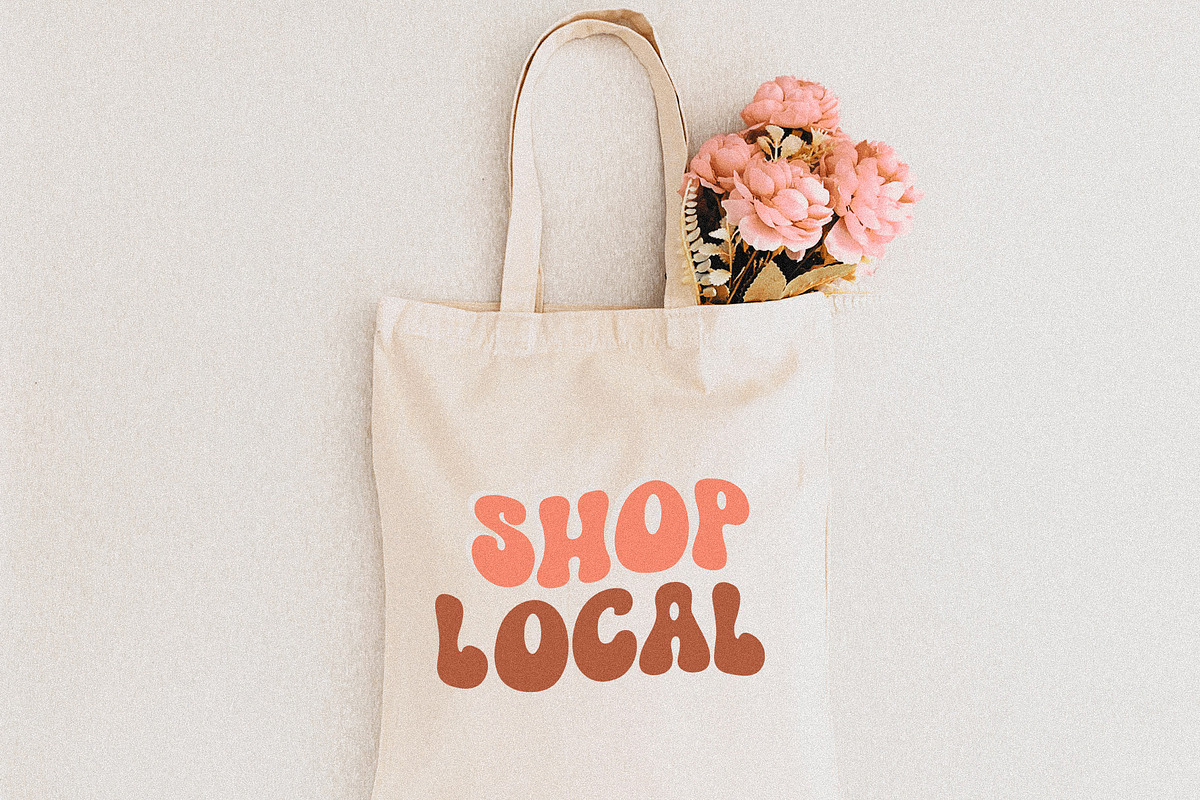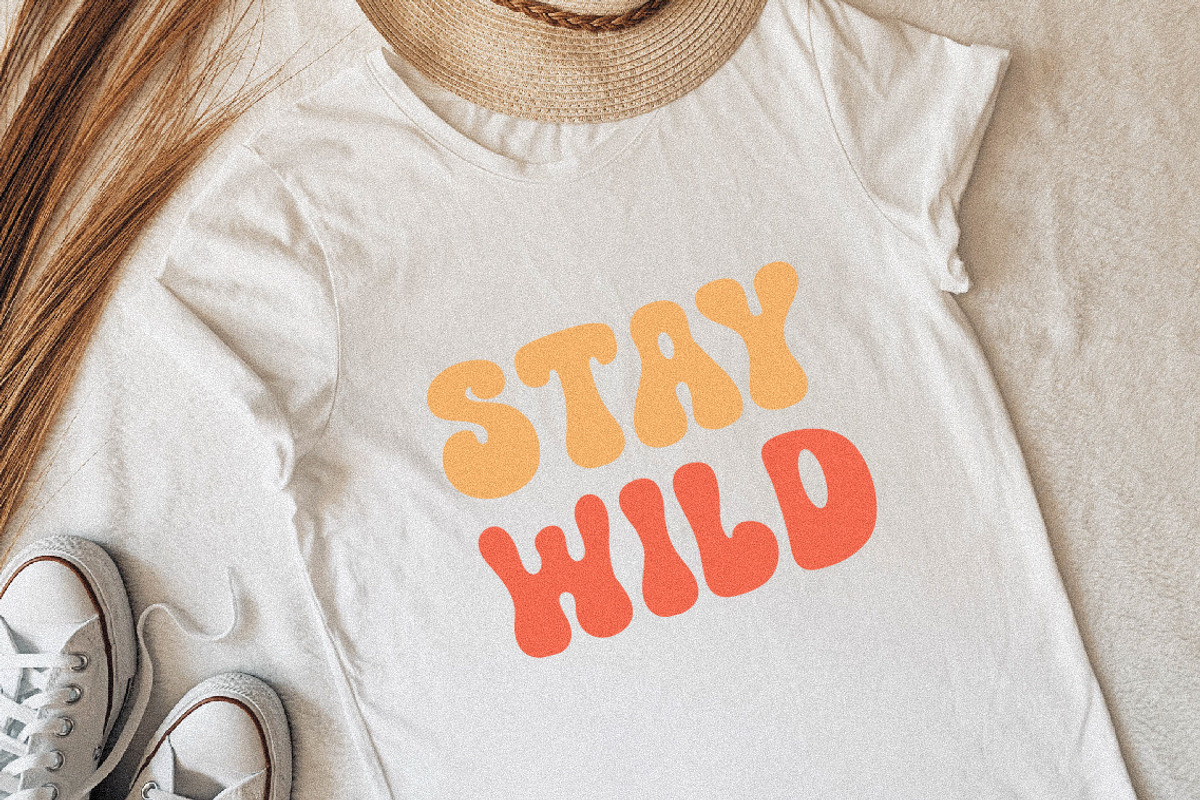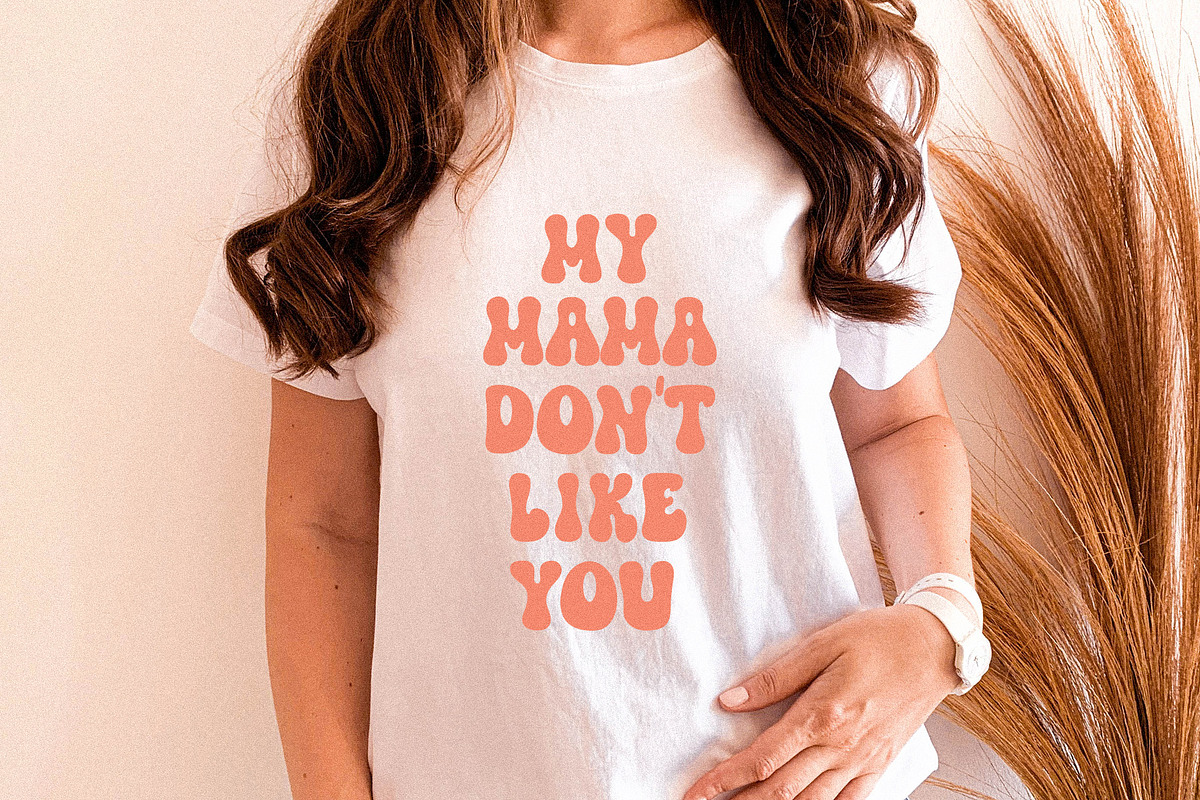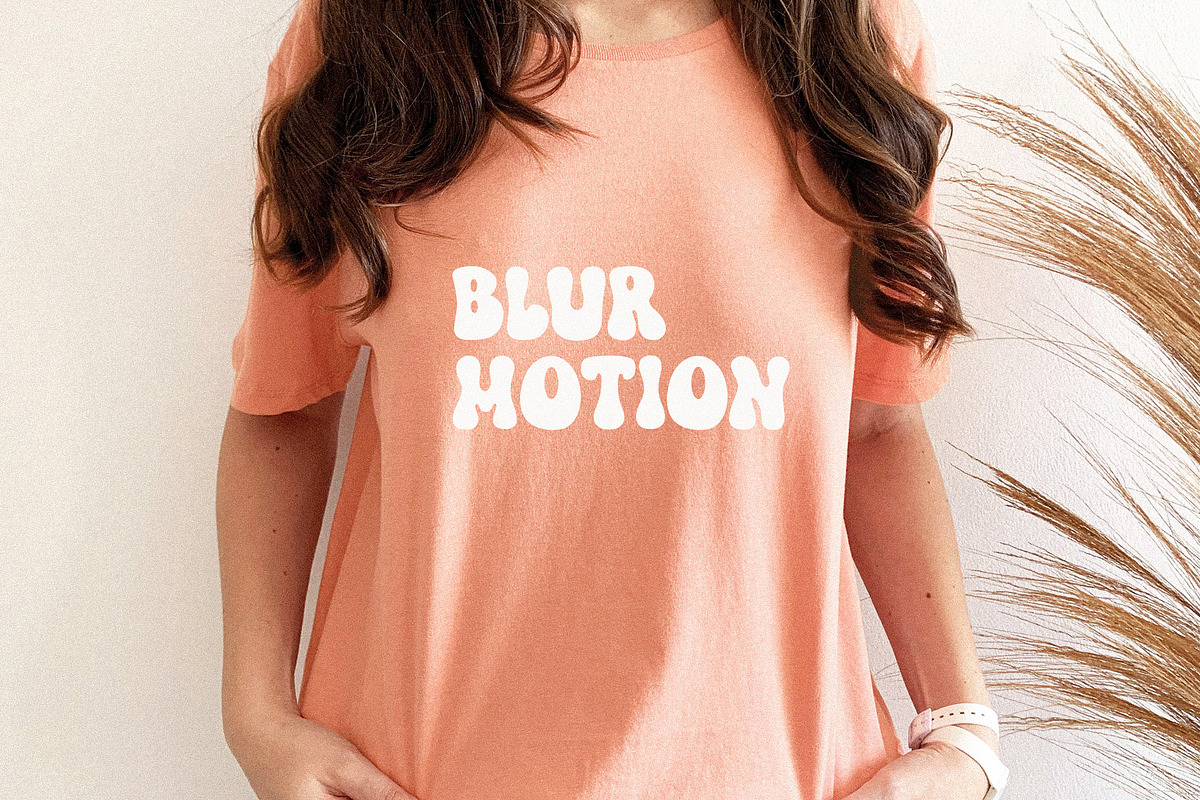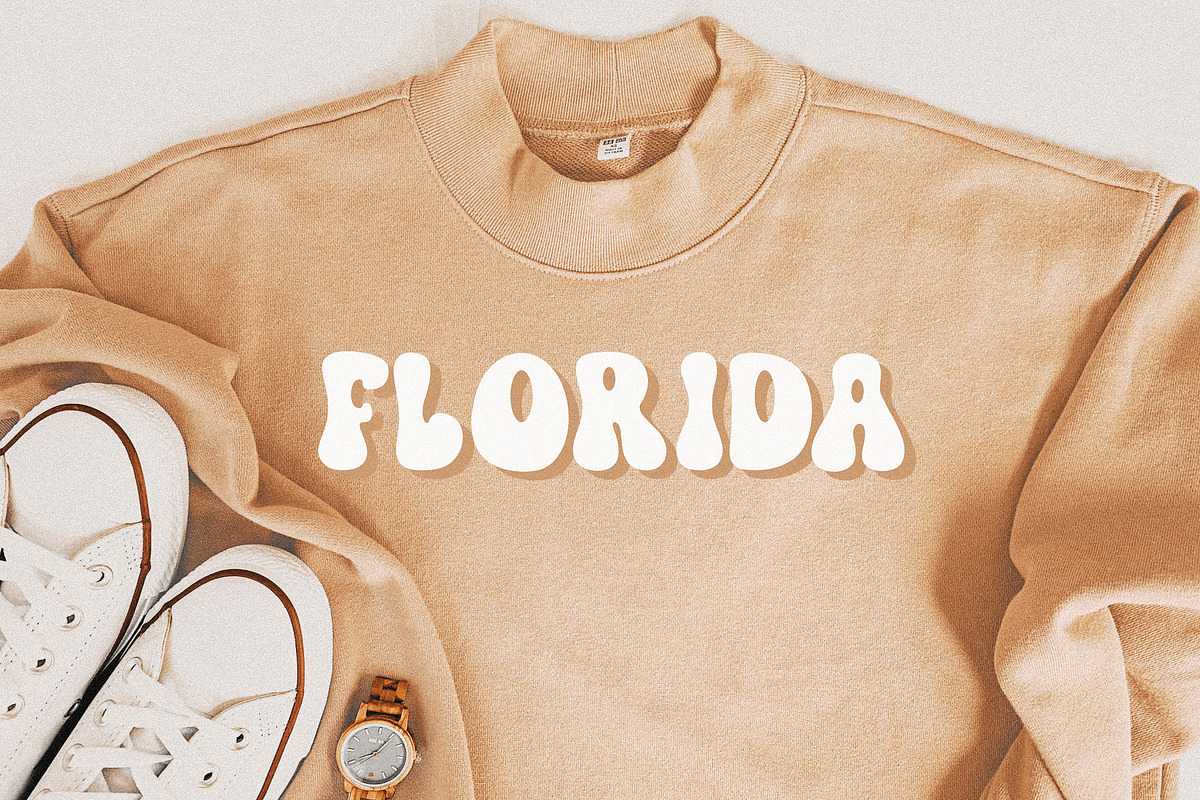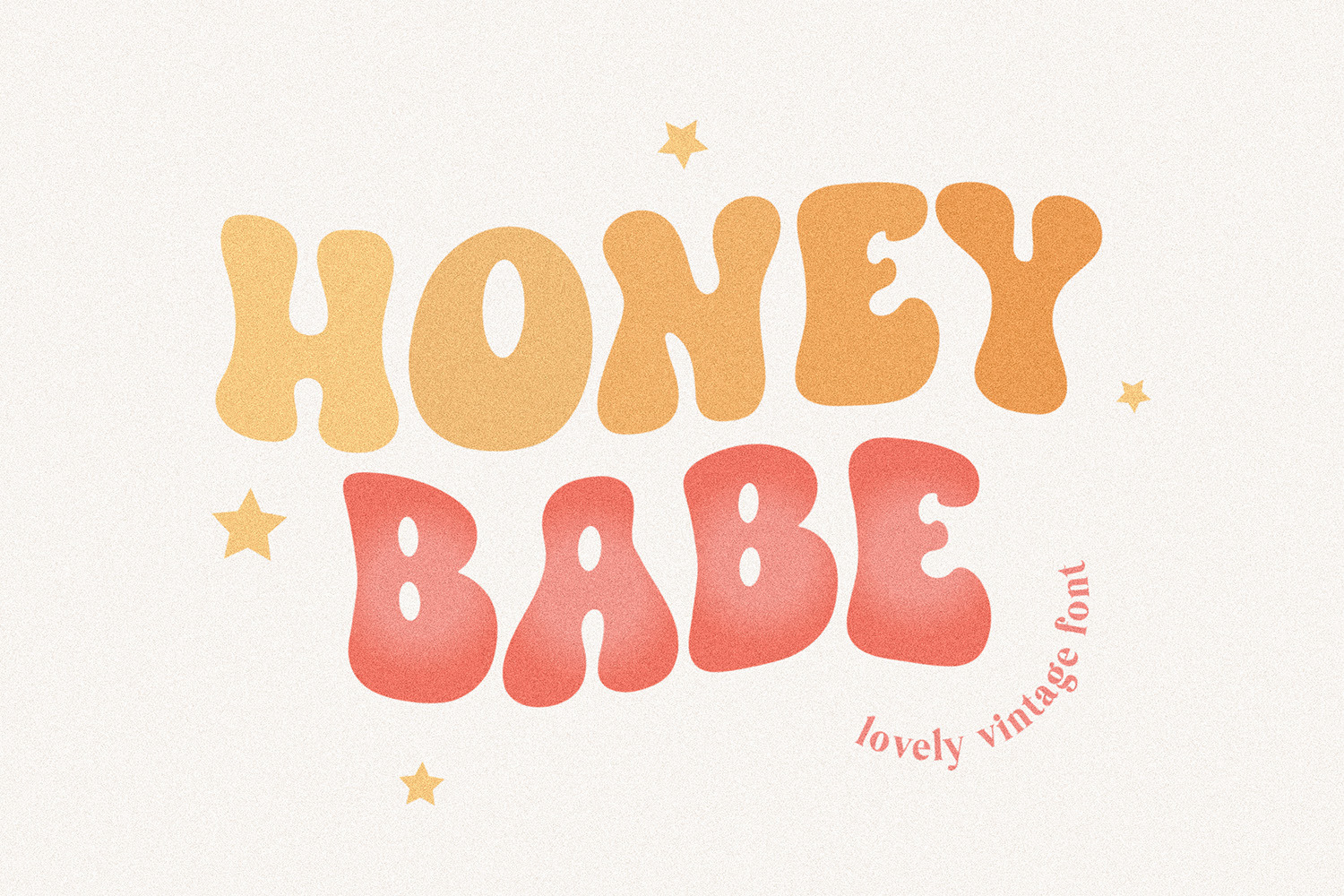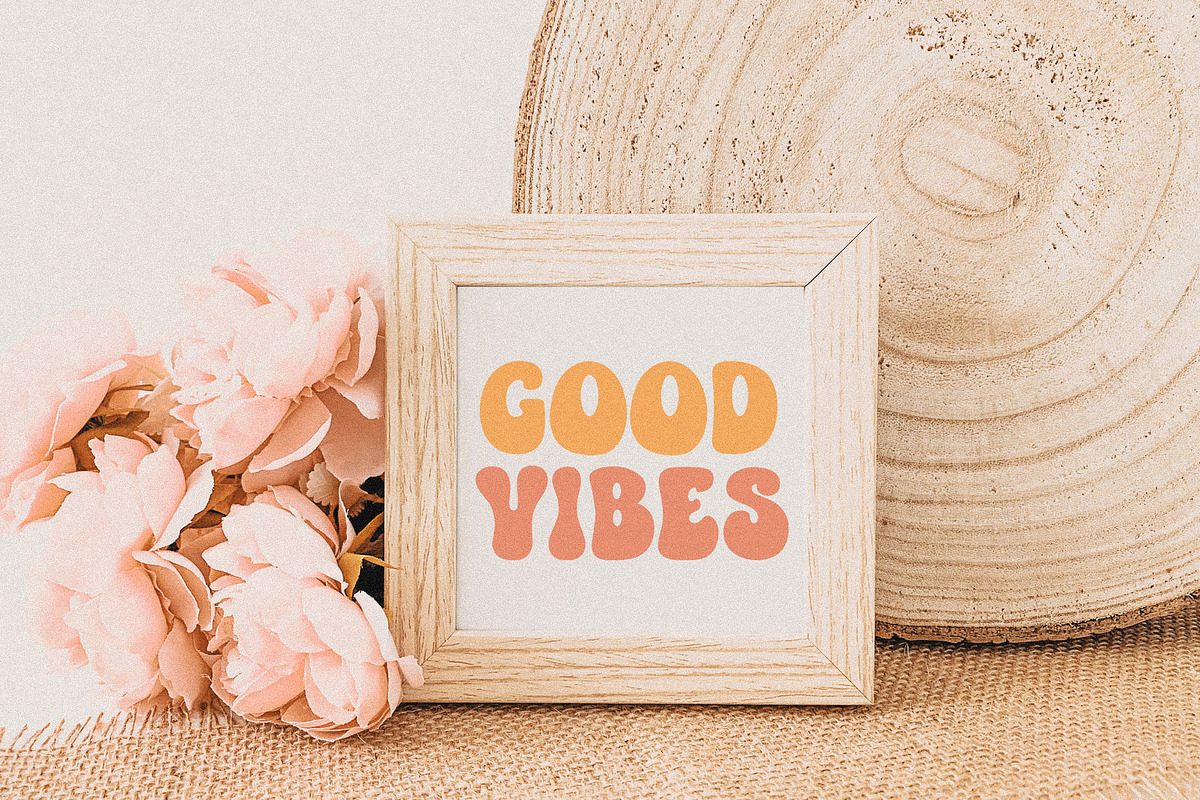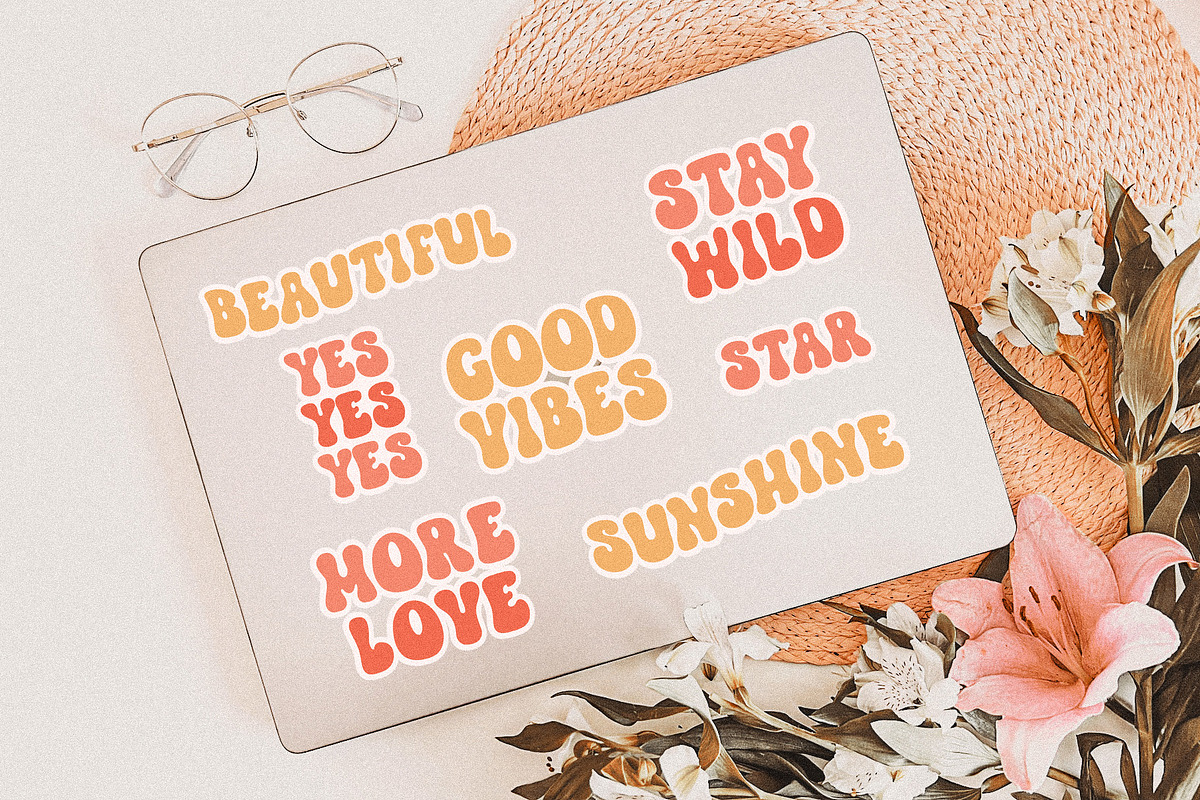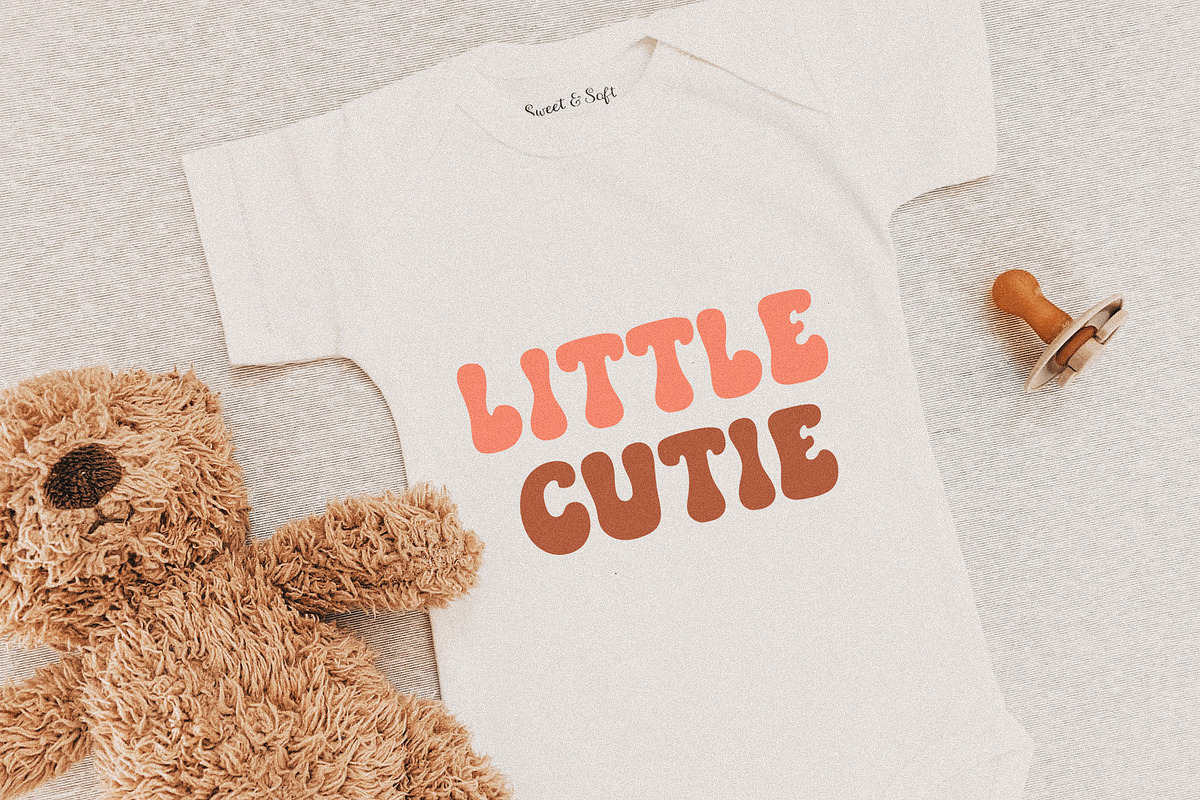
Honey Babe Groovy Retro Font
Honey Babe a lovely retro handwritten font. Perfect to create stickers, quotes, t-shirt designs, mug designs, baby svg onesie projects, cricut projects, sublimation designs and svg files.
Honey Babe Font